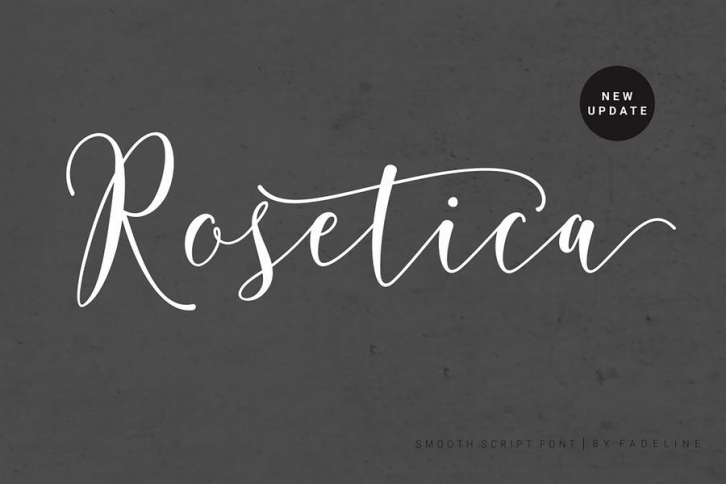
Rosetica Smooth Script
Hi Designer, Coming again to complete your script font collection..! This time it came with 700 glyphs. This is a smooth script font with handwriting style. This time made soft so it gives the character of handwriting very simple, real and sweet.
Rosetica is perfect for logo's, branding projects, homeware designs, product packaging, mugs, quotes, posters, shopping bags, logo's, t-shirts, book covers, name card, invitation cards, greeting cards, and all your other lovely projects.
You can use this font for your job very easily. Because there are many features in it. Contains the complete set of lower and uppercase letters, punctuation, numbers, web fonts, and multilingual support. This font also includes several ligatures and alternative style Stylistic Set For those of you who have software that is capable of working OpenType (Corel Draw / Photoshop / Illustrator / InDesign).